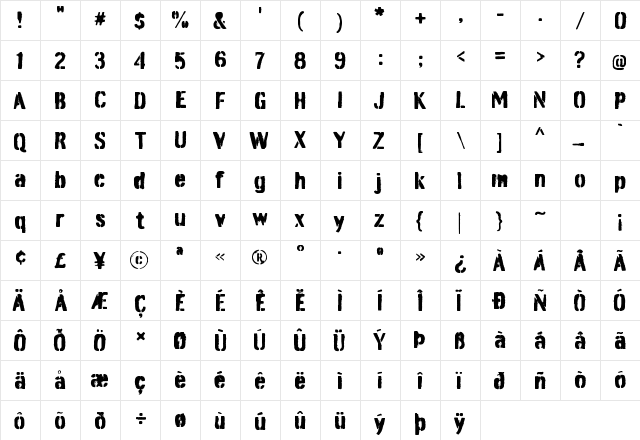
Burnaby Stencil
Design Context for Burnaby Typeface
Burnaby borrows the utilitarian aesthetic of stencil lettering, with its characteristic cutaways and no-frills construction lending an industrial edge.
A strong choice for packaging that needs edge, warehouse aesthetics, and rough-and-ready visual identities.
Pro Tip: Use Burnaby at large sizes on packaging, posters, or apparel where the stencil cutaways read clearly. Avoid small sizes where those gaps become visual noise.